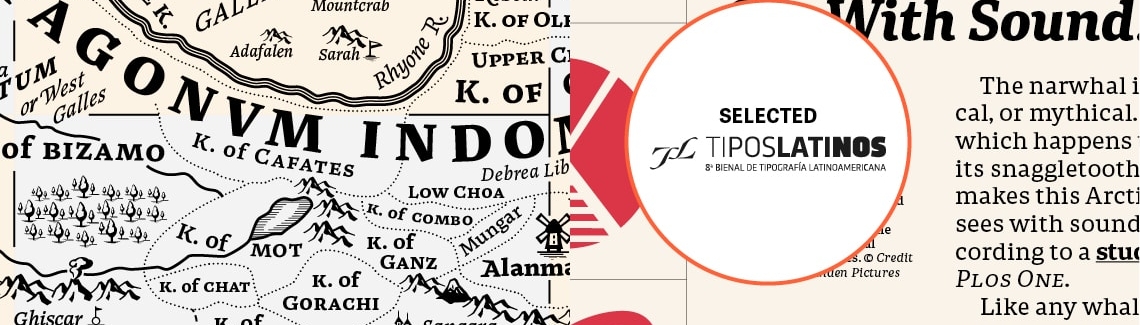
Noort and Portada selected for the 8th edition of Tipos Latinos 2018
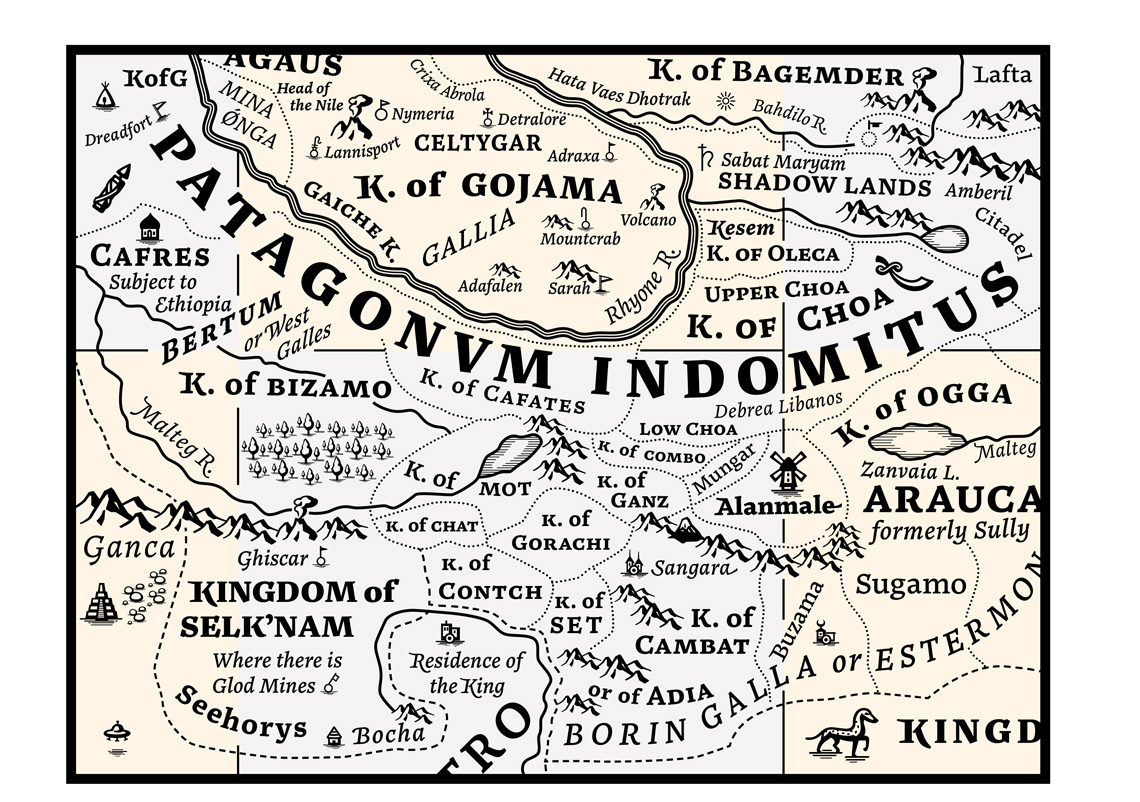
Juan Bruce’s Noort.
TiposLatinos is a biennial platform that specifically promotes Latin American type design, an expanding category since its beginning in 2004. In this edition, the 8th, only 74 typefaces were selected out of the 444 submitted, and among the honourees were Juan Bruce’s Noort and Veronika Burian and José Scaglione’s Portada. The winners will be exhibited in select venues in the twelve participating countries and may make their way to other locations. Congratulations to Juan, the TypeTogether team, and the other selectees!
Portada was designed for superlative performance in long form reading on screens, in UI, and in apps, Portada is a serif type family and icon set that’s as clear and readable as a sans in restrictive digital environments. You can watch a short video with Portada here.
Juan Bruce’s mature serif family, Noort, is an information architect’s dream. The designer’s complex job of layering information and stylistic design choices can be balanced by Noort’s easily-read nature and analogue details.
Veronika Burian and José Scaglione’s Portada.